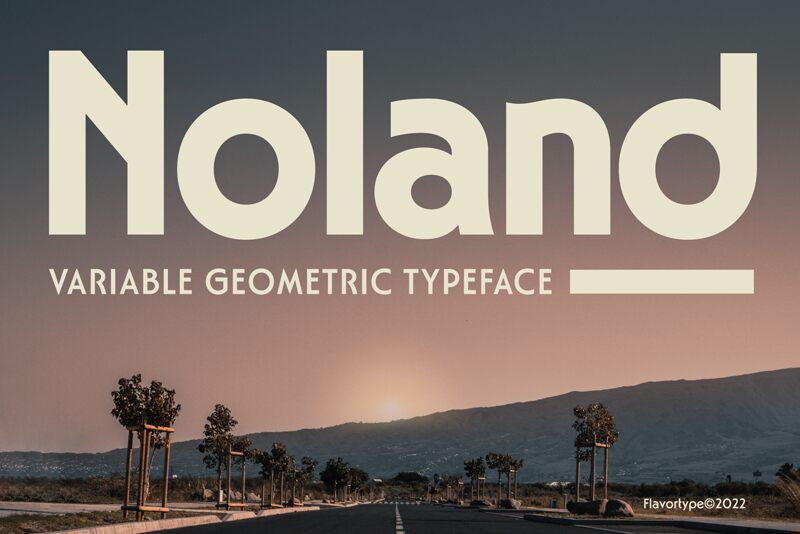
Dive into the world of Noland Bold, a striking creation by renowned font designer Ilham Herry. As part of the Noland font family, this sans serif gem stands out with its bold weight and variable geometric design. It's a perfect blend of modernity and versatility, making it an ideal choice for designers looking to push the boundaries of visual communication.
Noland Bold's assertive lines and contemporary curves deliver a powerful visual impact, suited for everything from commanding headlines to attention-grabbing logos. Whether you're crafting an elegant brand identity or setting dynamic web copy, Noland Bold adapts seamlessly to your creative vision, ensuring that your project will not only be seen but remembered.